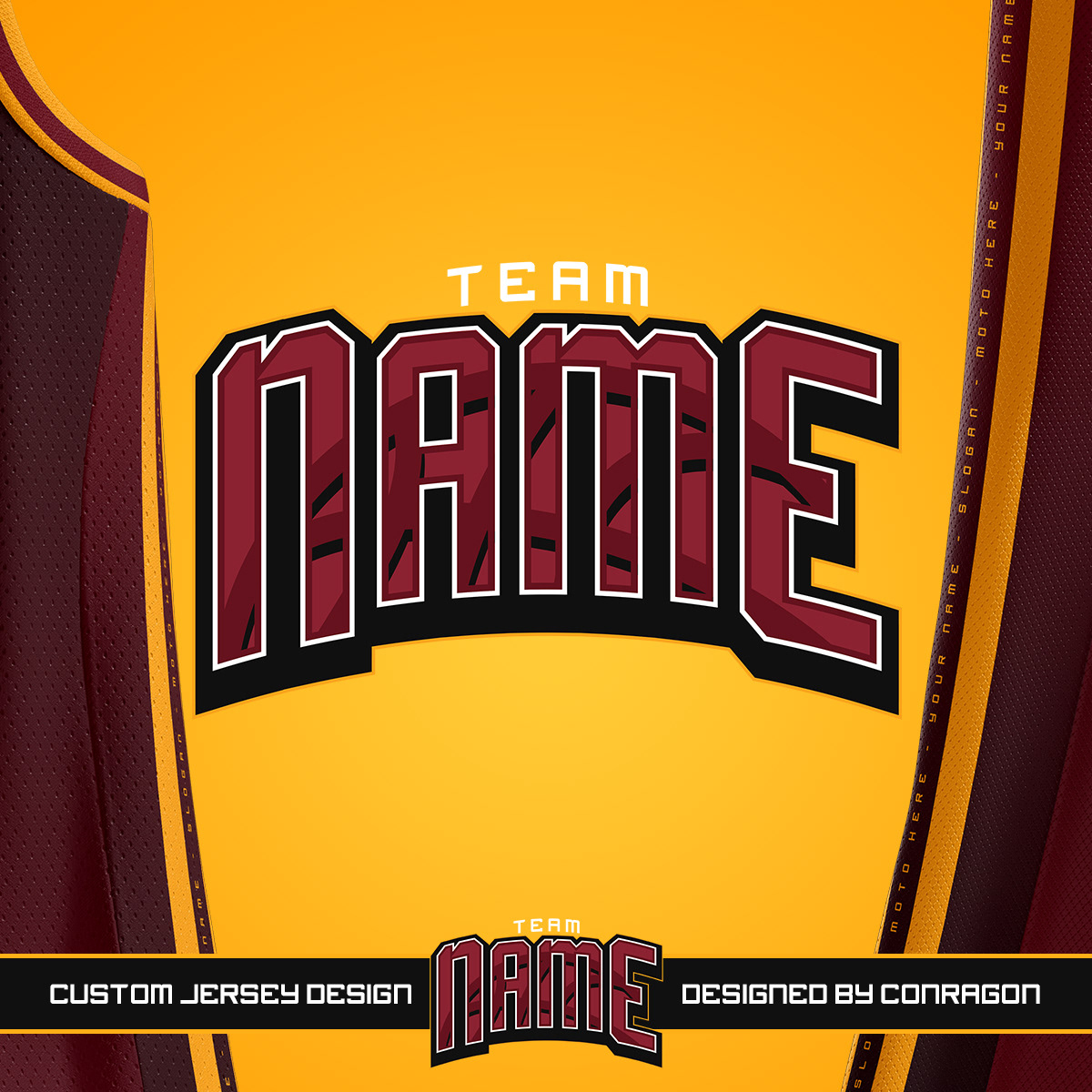
While working on poster designs, I decided to create my own fonts and here's one of my favorite font. CNRGN Block V2. Originally, the V1 is not good that's why I won't post it. Feel free to download this one.
* Font used in Stripe Effect / Conragon is not same with CNRGN Block V2.